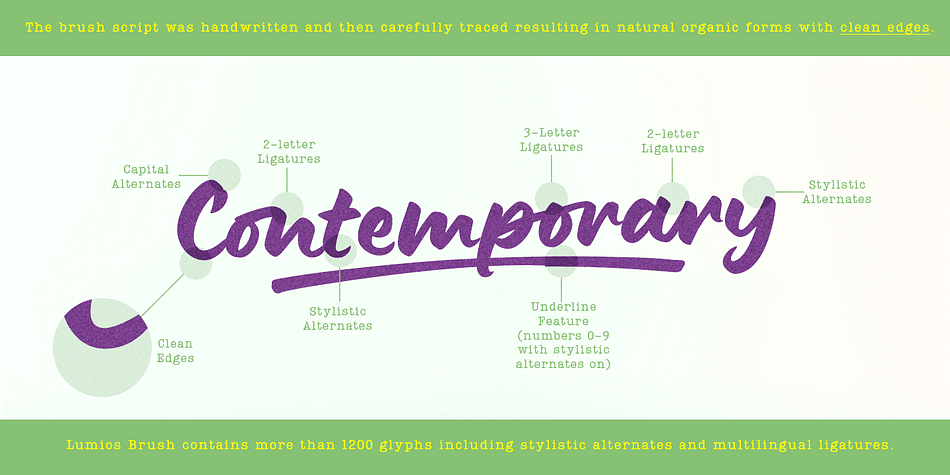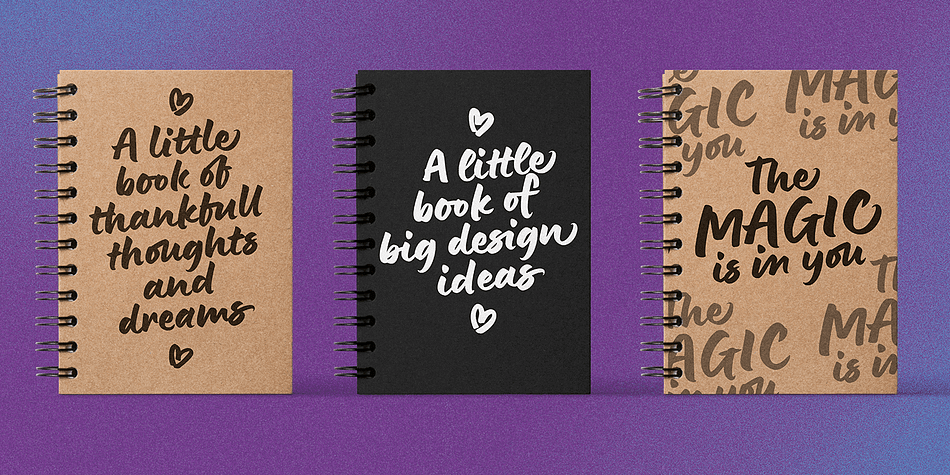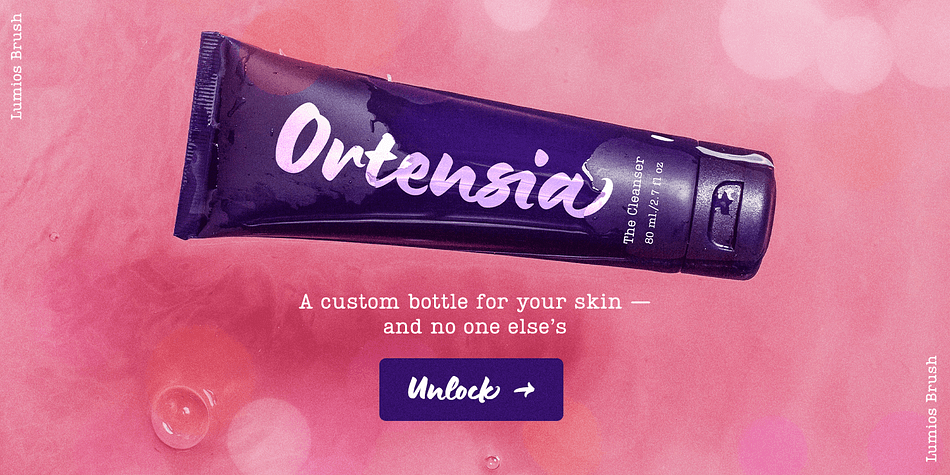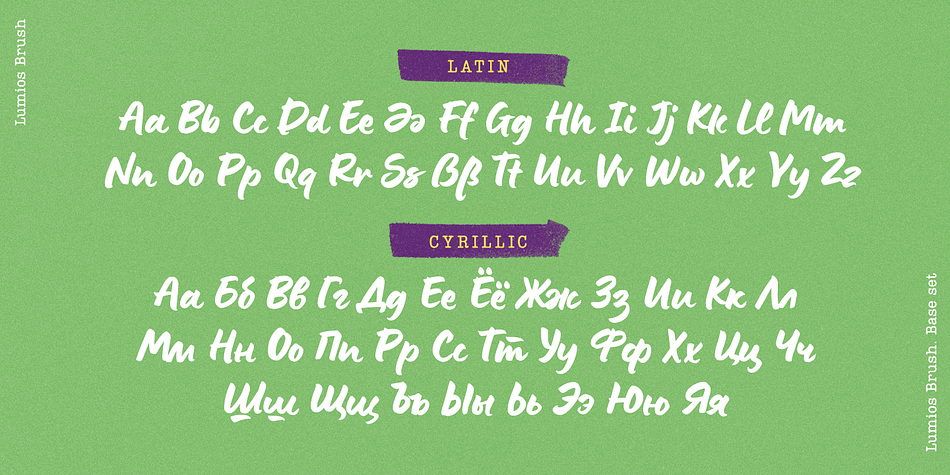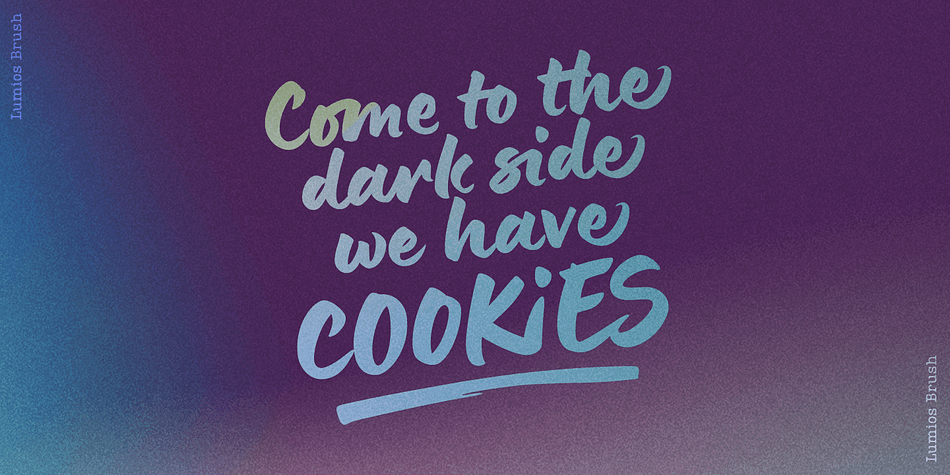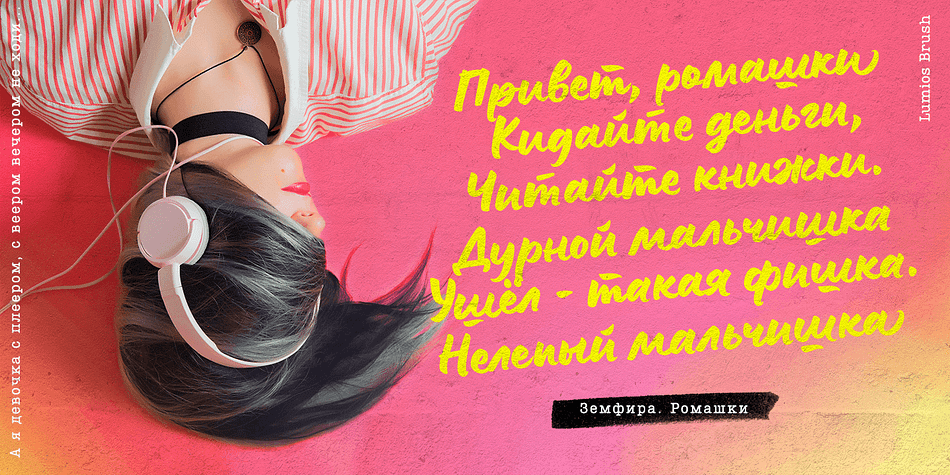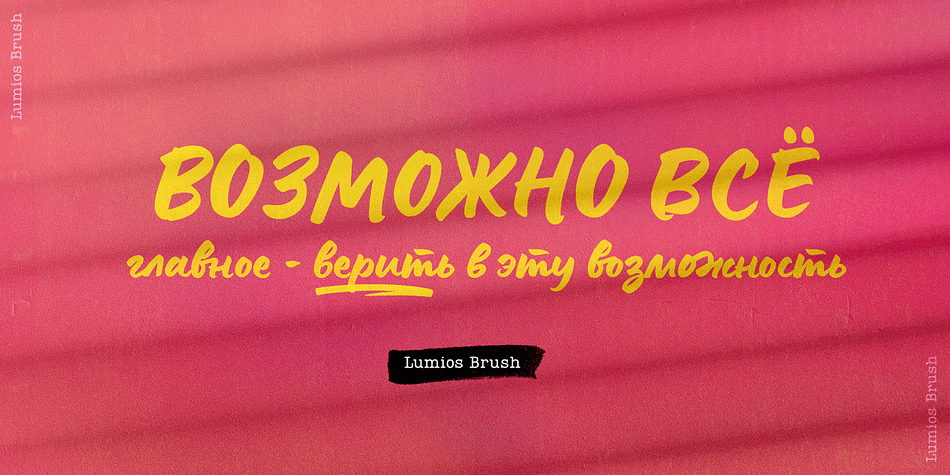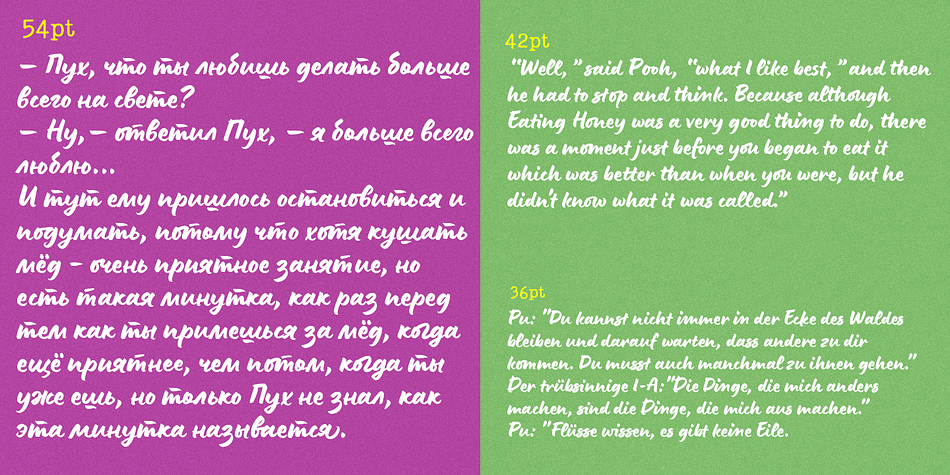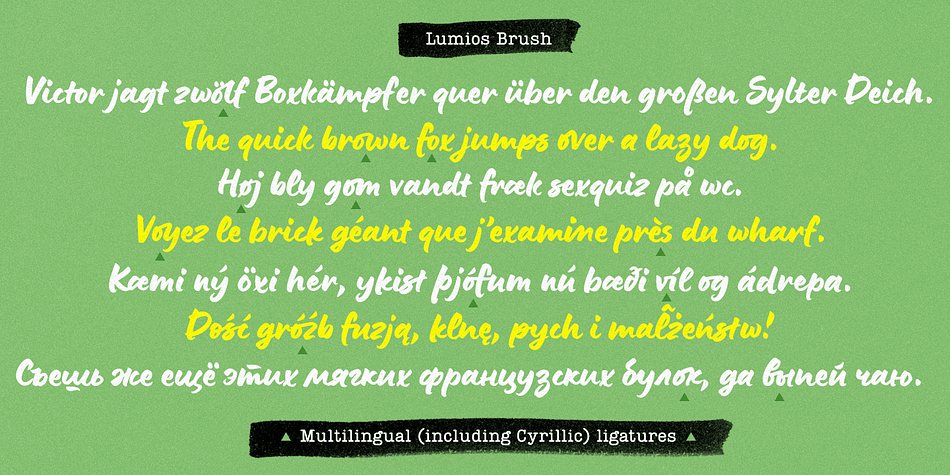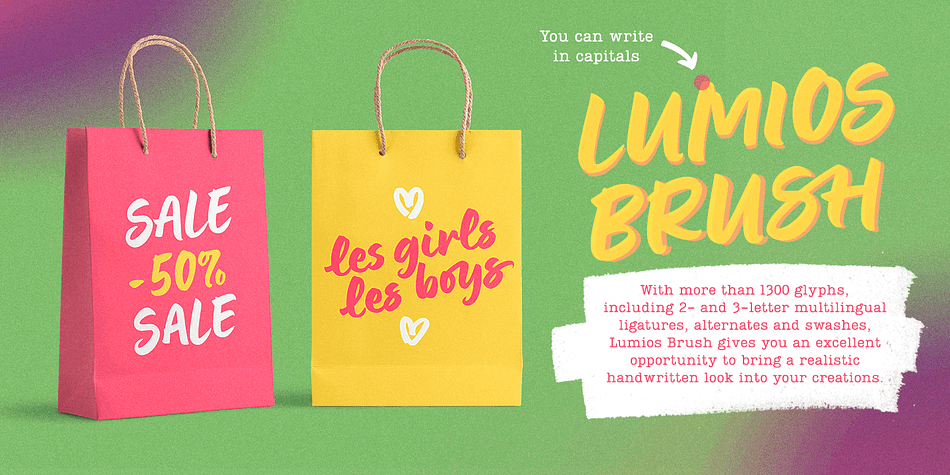
Lumios Brush
Designed by Elena Genova, Lumios Brush is a brush script and script font published by My Creative Land.
Lumios Brush is a new addition to the Lumios Extended Family. It was written with Pilot Brush Pen on a glossy paper (which allows a really smooth movements of the brush pen). It has clean edges - no surprises!
Just like Lumios Marker, the Brush sibling has multilingual (including basic cyrillic) support. The font also benefits from 2- and 3-letter ligatures, stylistic alternates and swashes, underlines, arrows and a few heart symbols.